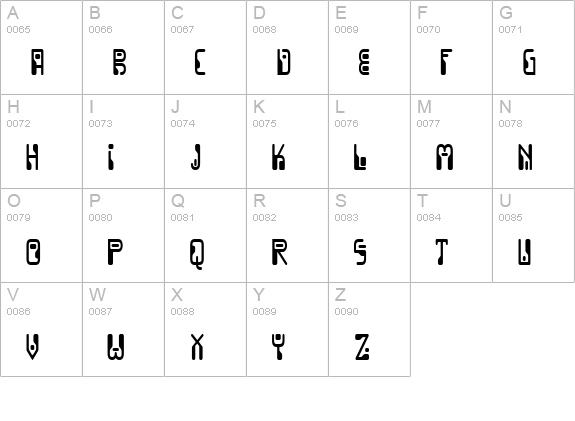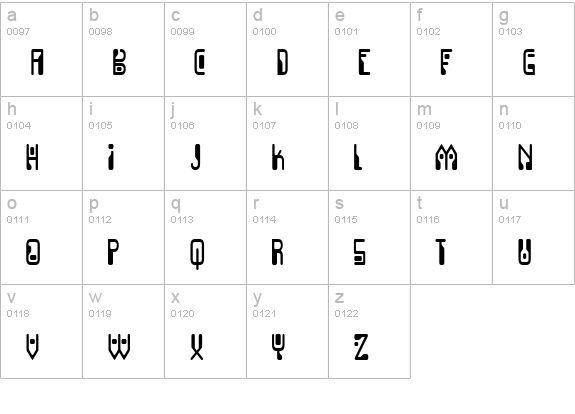
Dignity Of Labour Font Details
The Dignity Of Labour font exudes a sense of professionalism and sophistication, making it a perfect choice for a wide range of design projects. Its clean lines and elegant curves give off a timeless and classic vibe, while still maintaining a modern touch. This versatile font can be used for anything from logos to invitations, creating a polished and refined look. And the best part? The Dignity Of Labour font is available for free download at FontsMarket.com, making it accessible to anyone looking to elevate their design work without breaking the bank. Don't miss out on this opportunity to add a touch of elegance to your projects with this stunning font.